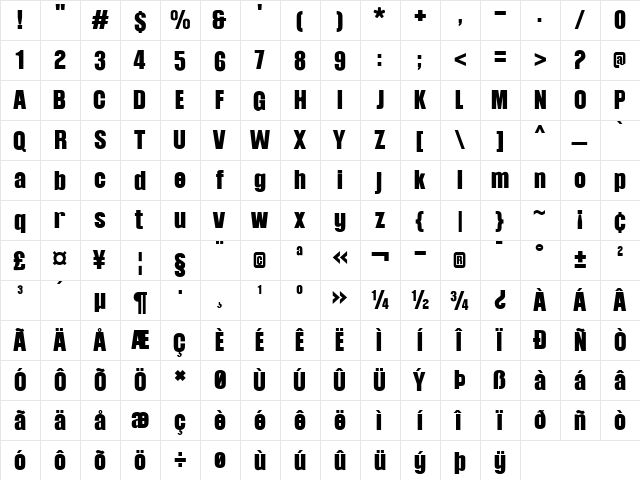
Balibold Regular
| Foundry | Labastudioid |
| Designer | Lambert Wahang |
Design Context for Balibold Typeface
Balibold takes a measured approach to typography — its balanced proportions and neutral character make it a reliable workhorse for both digital and print work. The heavy weight commands attention and anchors typographic hierarchies.